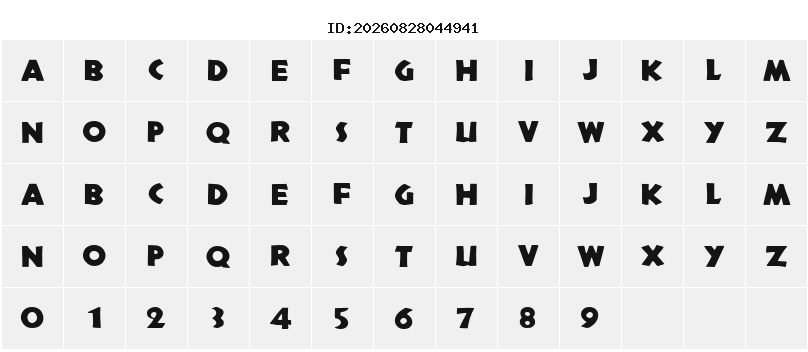
• Font Name: TribecaSolid
• Font ID: Altsys Fontographer 3.5 TribecaSolid Regular
• Full Font Name: TribecaSolid Regular
• Version: Altsys Fontographer 3.5 8/1/92
• PostScript Name: TribecaSolid
• Character Count: 160
• Copyright: Tribeca font ﱭ 1991 by David Rakowski. All Rights Reserved.
About TribecaSolid.ttf
TribecaSolid.ttf is a modern, elegant sans-serif font designed for ultimate readability and visual harmony. Perfect for branding, headlines, web design, and print materials.